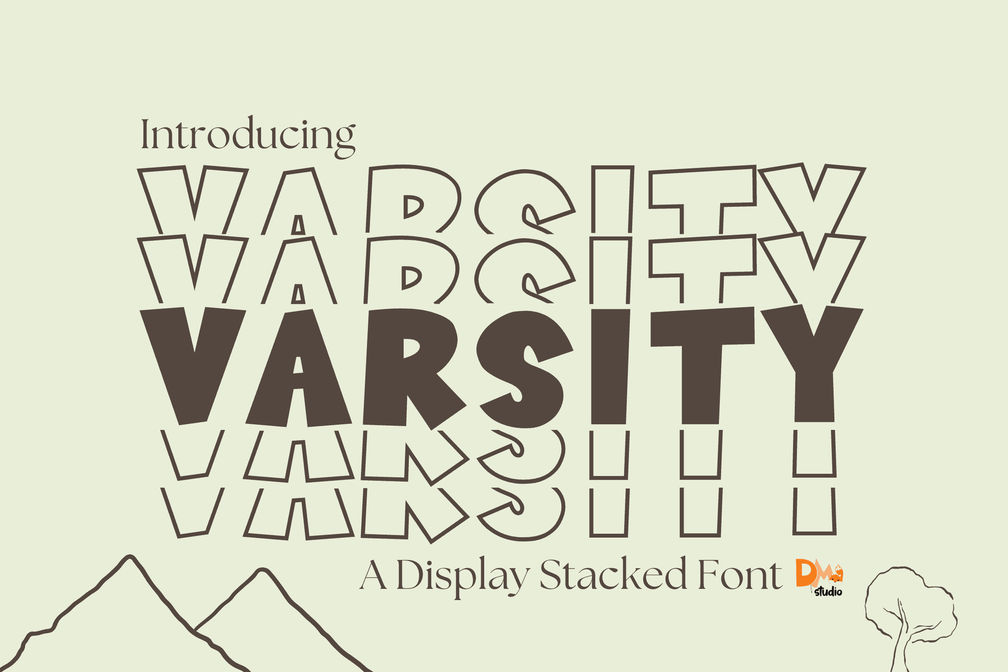
Varsity Stacked
Varsity Stacked – Bold & Modern Stacked Font
Varsity Stacked is a striking and structured display font featuring a stacked lettering style with a bold and contemporary aesthetic. Designed for eye-catching typography, this font is perfect for posters, branding, social media graphics, merchandise, editorial layouts, and any project that needs a strong, layered appearance.
• Stacked Lettering Style: A unique, bold, and structured font design that enhances visual appeal.
• Perfect for Modern & Trendy Projects: Ideal for branding, headlines, posters, and promotional materials.
• Versatile & Eye-Catching: Works great for display typography, advertisements, and stylish compositions.